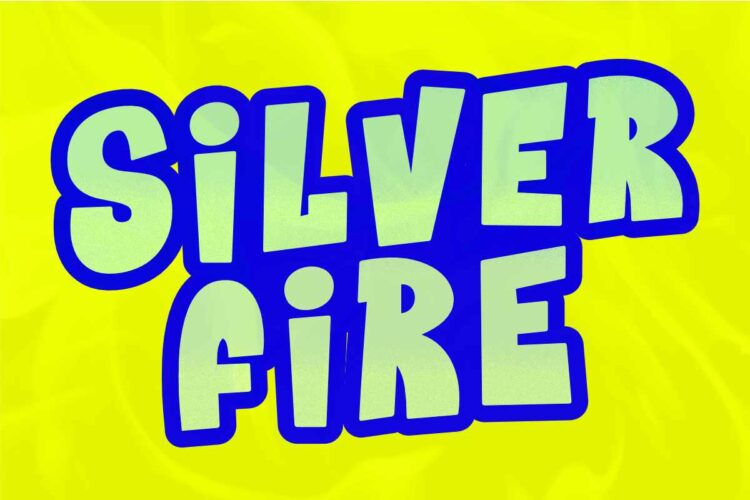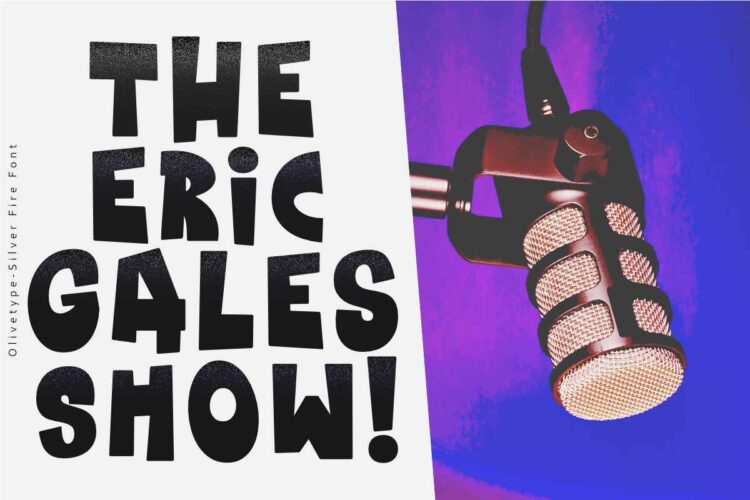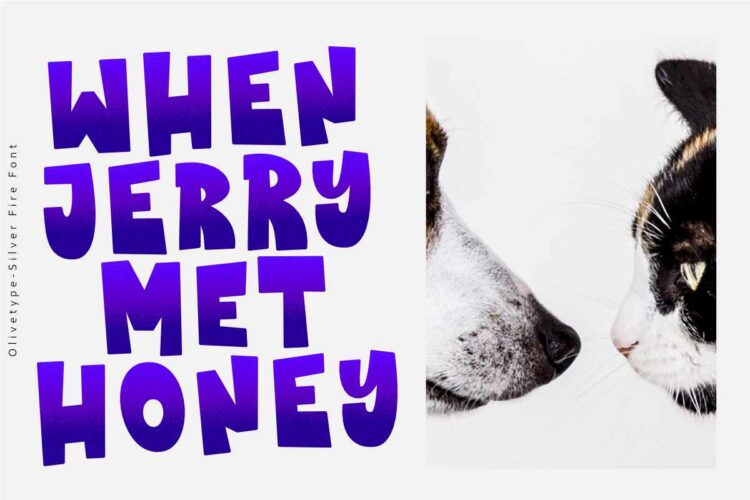
Immerse yourself in a world where every word pops off the page with this dynamic font. Whether you’re working on a high-octane action game or designing an eye-catching movie poster, Silver Fire delivers the impact you need to grab attention. Elevate your designs with its unique blend of cartoon charm and graffiti flair that is sure to make your work stand out in all the right ways